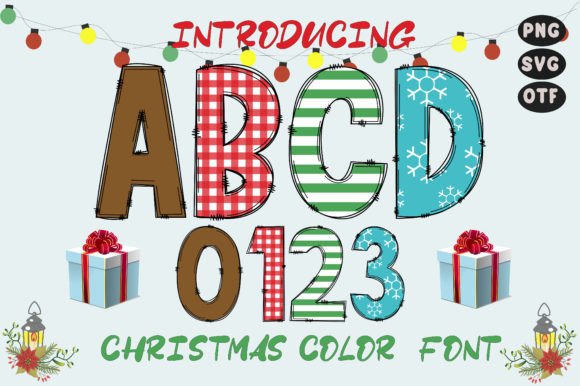
Get into the holiday spirit with the Christmas Letters Font! This delightful and festive color font is the perfect addition to all your Christmas-themed designs, whether it's for cards, crafts, shirts, or decorations. Created by Color - 4UTYPE, this font is designed to instantly enhance your projects and bring a touch of joy and cheer.
With its vibrant and colorful letters, the Christmas Letters Font will capture the attention of anyone who sees it. Each character is carefully crafted to resemble charming Christmas motifs, making your designs truly stand out. Whether you're creating personalized Christmas cards for your loved ones or designing unique holiday merchandise, this font will add that extra special touch.
Not only does the Christmas Letters Font look amazing, but it is also incredibly versatile in its usage. Compatible with popular design software like PhotoShop, Illustrator, Silhouette, and Inkscape, you have the freedom to explore and create to your heart's content. Let your creativity run wild as you experiment with different colors and effects, bringing your Christmas-themed projects to life.
When it comes to spreading the holiday spirit, the Christmas Letters Font is the ultimate tool. Its combination of cuteness, festiveness, and creativity will captivate anyone who lays eyes on it. Whether you're a professional designer or a DIY enthusiast, this font is the perfect choice for adding that extra touch of magic to your Christmas projects.